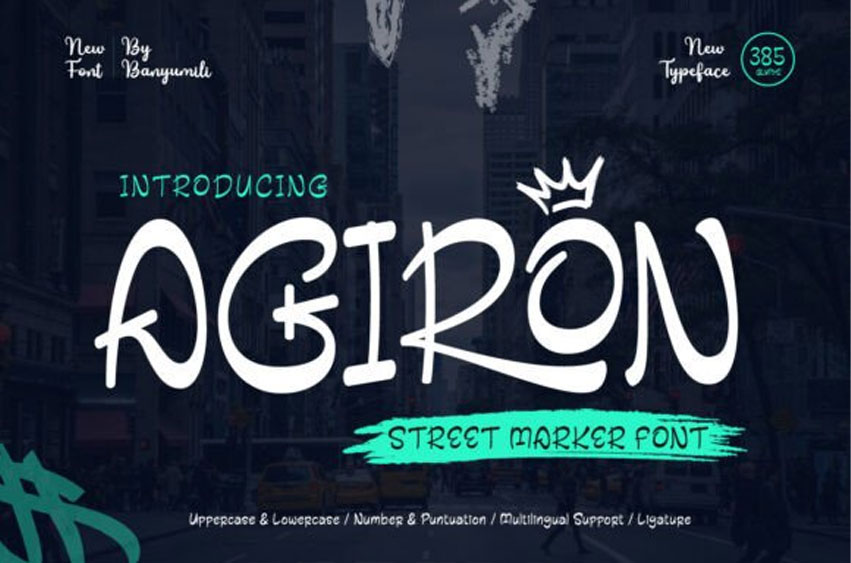
Agiron Font
Agiron Font Street Marker Font is a raw and authentic typeface inspired by street art and graffiti. Its hand-drawn, marker-style strokes capture the spirit of urban culture, bringing a fresh and expressive vibe to your designs.
Perfect for streetwear branding, event posters, album covers, and any project that needs a free-spirited, edgy touch, Saeron offers a unique and creative look.
Embrace the energy of the streets with Agiron, and let your designs showcase an urban, artistic flair.